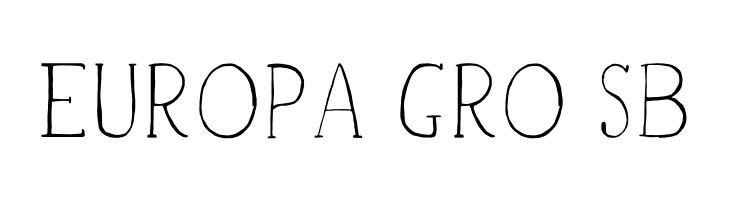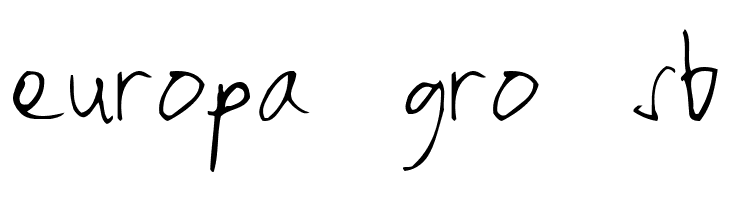
A bold, modern sans-serif font with a clean and approachable design.
A playful, handwritten font with a smooth, marker-like appearance.
A hand-drawn, artistic font with tall, slender characters and a subtle elegance.
A bold, playful font with rounded edges and a strong, friendly presence.
A bold, condensed font with an industrial and retro feel.
A bold, distressed font with a rugged, grungy aesthetic.
A casual, handwritten font with a playful and informal style.
A bold, dynamic font with a three-dimensional effect and energetic design.